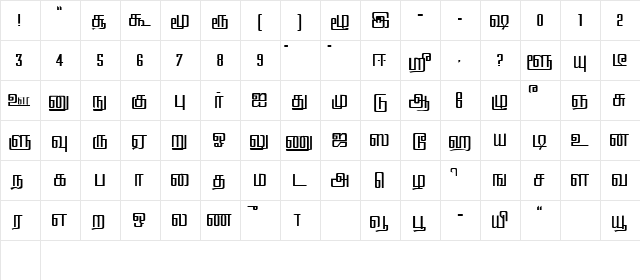
Hamsathvani Regular
Design Context for Hamsathvani Typeface
Hamsathvani offers clean, dependable letterforms without strong stylistic allegiance, making it a practical choice for designers who need flexibility.
Pro Tip: Pair Hamsathvani with a font of contrasting weight or personality to build a more expressive typographic hierarchy.